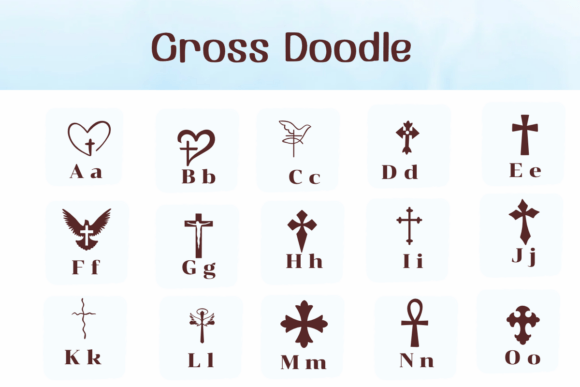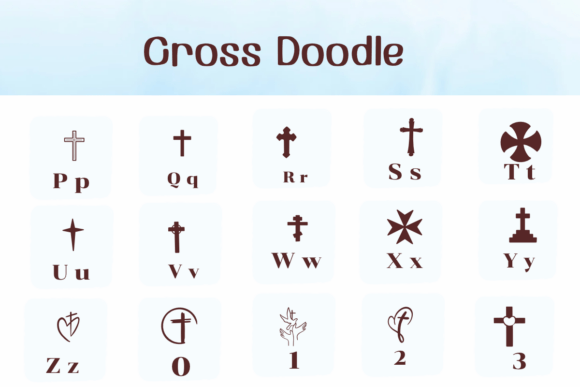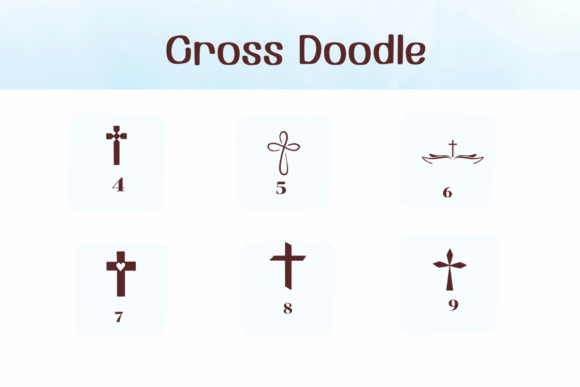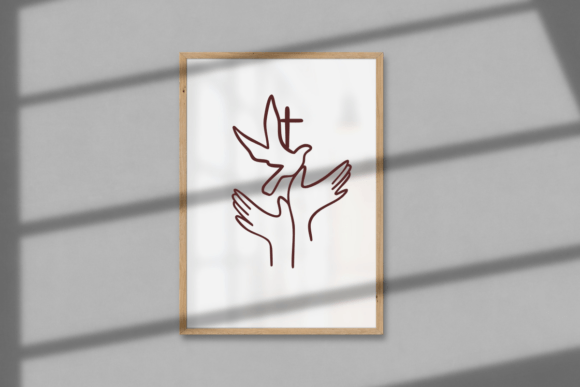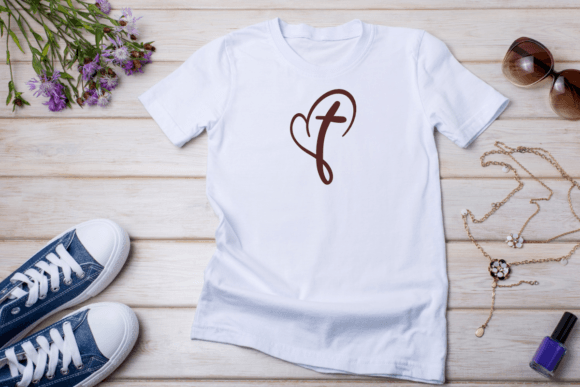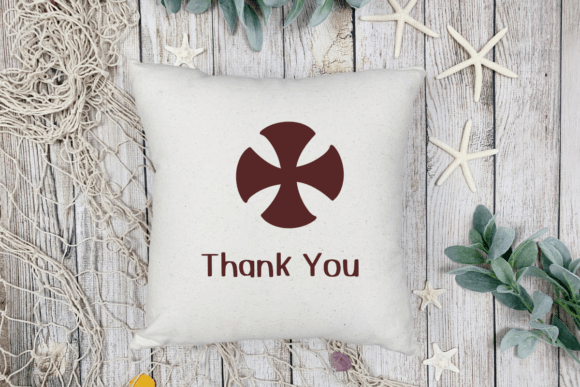
Introducing Cross Doodle Font: Elevate Your Designs with Spiritual Elegance
In the world of design, fonts play a crucial role in conveying messages, evoking emotions, and creating visual identities. For designers and crafters seeking to infuse their projects with spiritual significance and elegance, the Cross Doodle Font is an exceptional choice. This unique collection of cross-inspired illustrations, doves, and Christian symbols is meticulously crafted to add a touch of faith and sophistication to various creative endeavors.
What is Cross Doodle Font?
Cross Doodle Dingbats Font is a distinctive and creative dingbat font that showcases an array of beautiful and unique cross designs. This spiritual and creative collection is not just about crosses; it also features doves and other Christian symbols, making it a versatile resource for anyone looking to incorporate elements of faith into their designs.
Features of Cross Doodle Font
- Unique Cross Designs: The font boasts a wide variety of cross designs, each meticulously crafted to be both beautiful and meaningful. These designs range from simple and elegant to intricate and detailed, offering something for every style and preference.
- Includes Doves and Christian Symbols: Beyond crosses, the font includes illustrations of doves and other Christian symbols, expanding its utility for faith-based projects.
- Perfect for Various Projects: Whether you’re working on church bulletins, religious projects, invitations, faith-based logos, or any other creative endeavor, this font is designed to meet your needs.
Applications of Cross Doodle Font
The versatility of Cross Doodle Font makes it suitable for a wide range of applications. Here are some of the ways designers and crafters can utilize this beautiful font:
- Church Bulletins and Programs: Add a touch of elegance and spirituality to church bulletins, programs, and newsletters with unique cross designs and Christian symbols.
- Religious Projects: From brochures and flyers to posters and banners, this font is perfect for any religious project that requires a spiritual touch.
- Invitations: Make your invitations stand out with beautiful cross designs and dove illustrations, ideal for baptisms, confirmations, weddings, and other faith-based events.
- Faith-Based Logos: Create memorable and meaningful logos for churches, ministries, and faith-based organizations using the unique designs from this font.
- Crafting Projects: If you’re a crafter, you can use Cross Doodle Font to add custom text and designs to your scrapbooking, card making, and other paper crafting projects.
Cross Doodle Dingbats Font is a valuable resource for designers and crafters looking to add a spiritual and creative touch to their projects. With its unique cross designs, doves, and Christian symbols, this font offers endless possibilities for creating meaningful and beautiful designs. Whether you’re working on a church bulletin, a faith-based logo, or a personal crafting project, Cross Doodle Font is sure to inspire and elevate your creations.
Embrace the elegance and spirituality of Cross Doodle Font in your next project, and discover how this versatile decorative font can help you convey your message with style and grace.